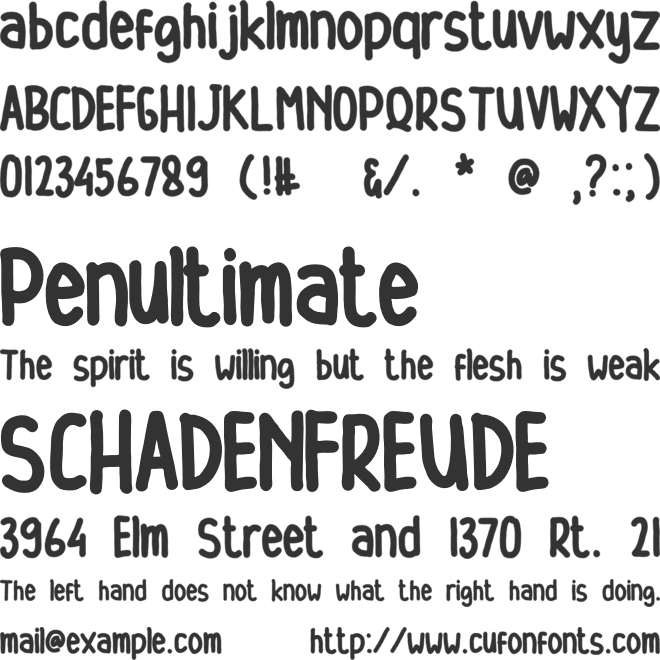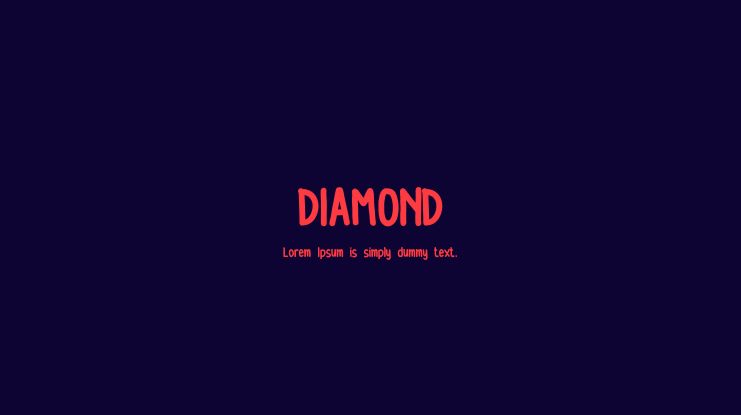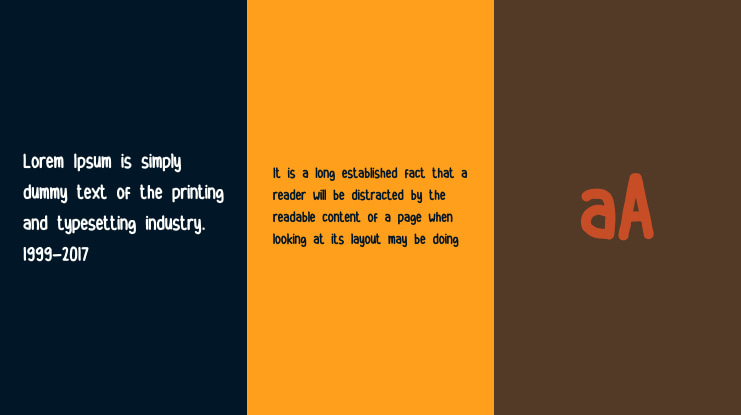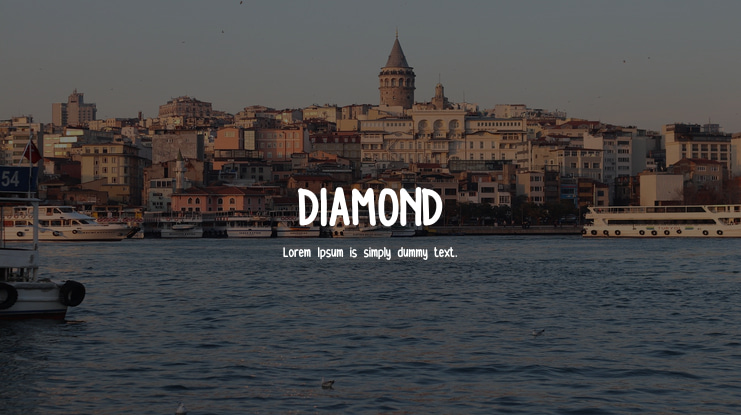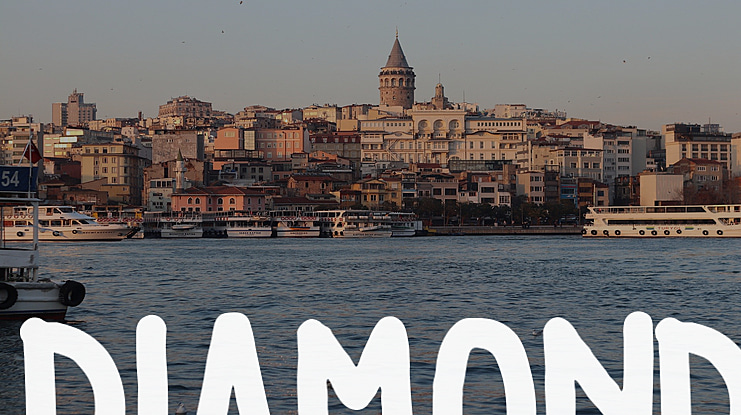
DIAMOND Font
Diamond is a simple and natural handwritten font. It can be used for various purposes such as logos, wedding invitations, headings, t-shirts, letterhead, signage, labels, news, posters, badges and so much more.